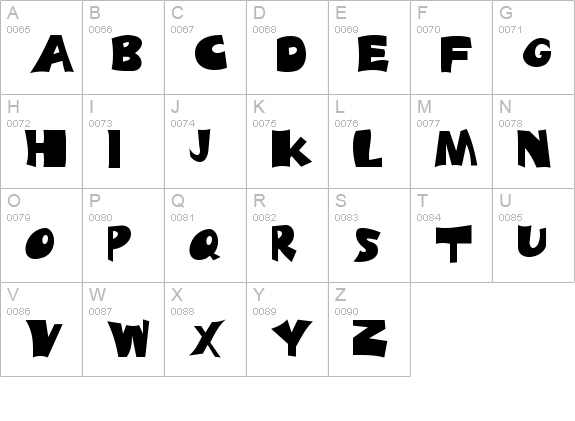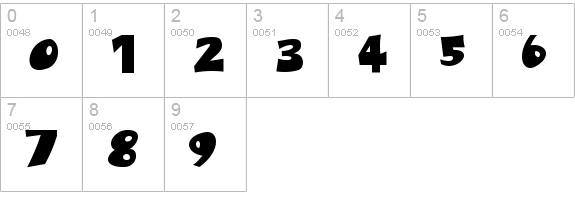
Introducing Big Truck font, a bold and powerful typeface inspired by the ruggedness and strength of heavy-duty trucks. This font exudes confidence and authority, making it perfect for headlines, logos, and branding projects that demand attention. Embodying the spirit of the open road, Big Truck font features thick, blocky letterforms that command presence and leave a lasting impact. Its industrial aesthetic and chunky design give it a modern edge while maintaining a sense of reliability and durability. Best of all, Big Truck font is available for free download exclusively at FontsMarket.com. Grab this versatile typeface today and let your designs roar with strength and character.